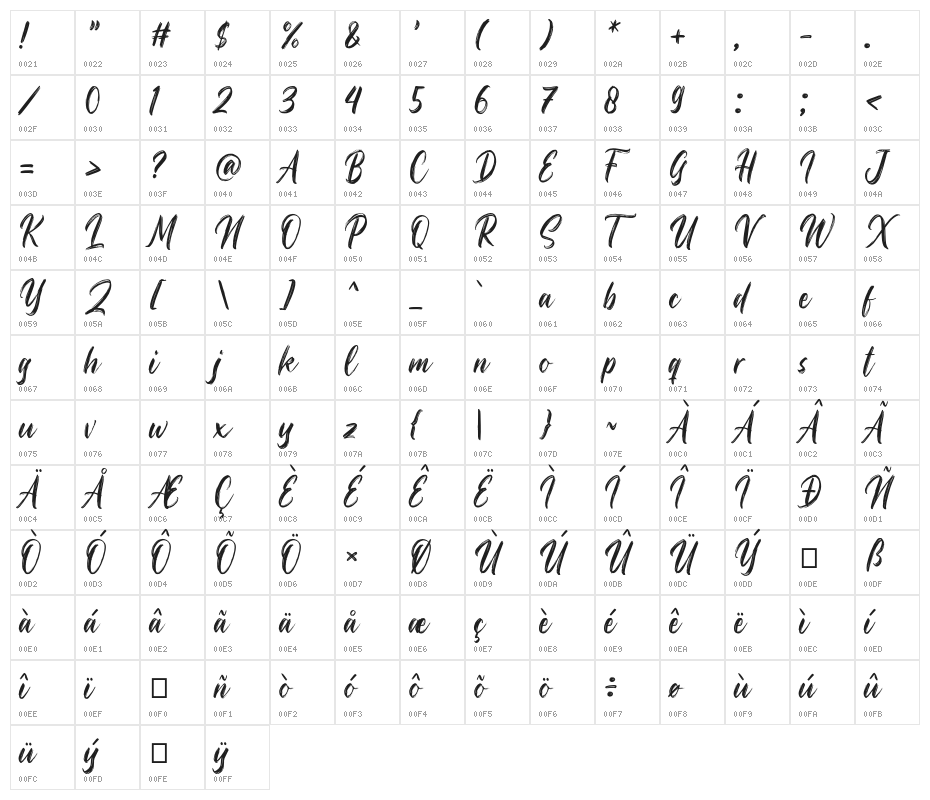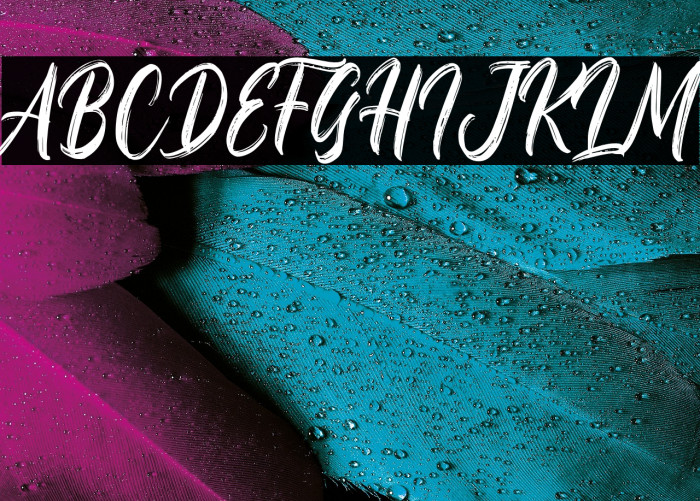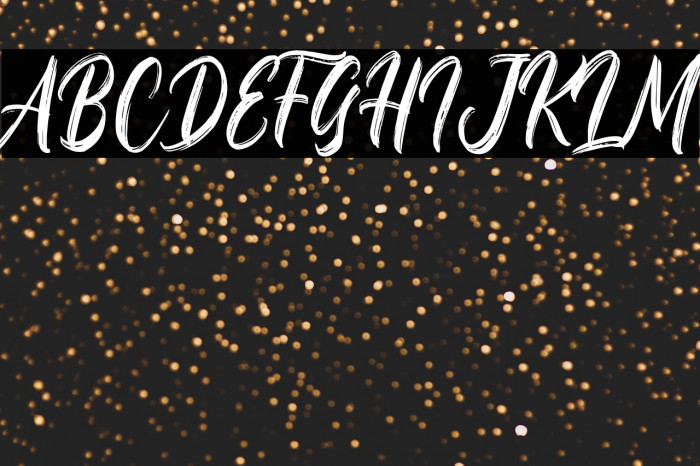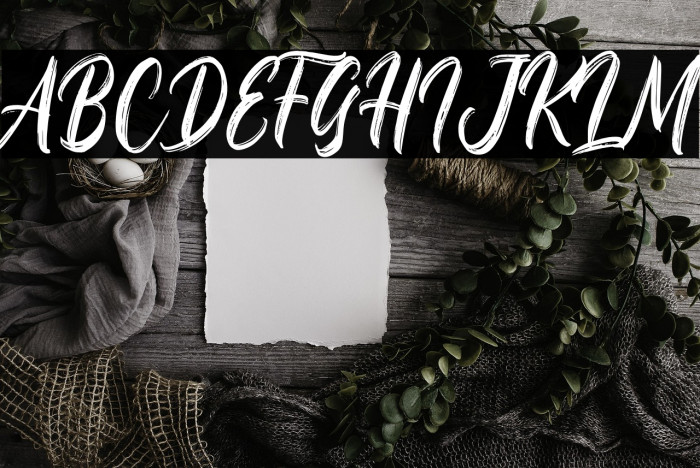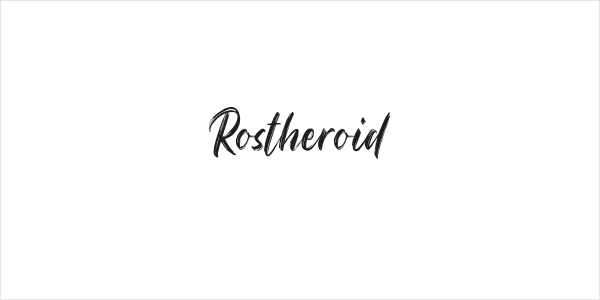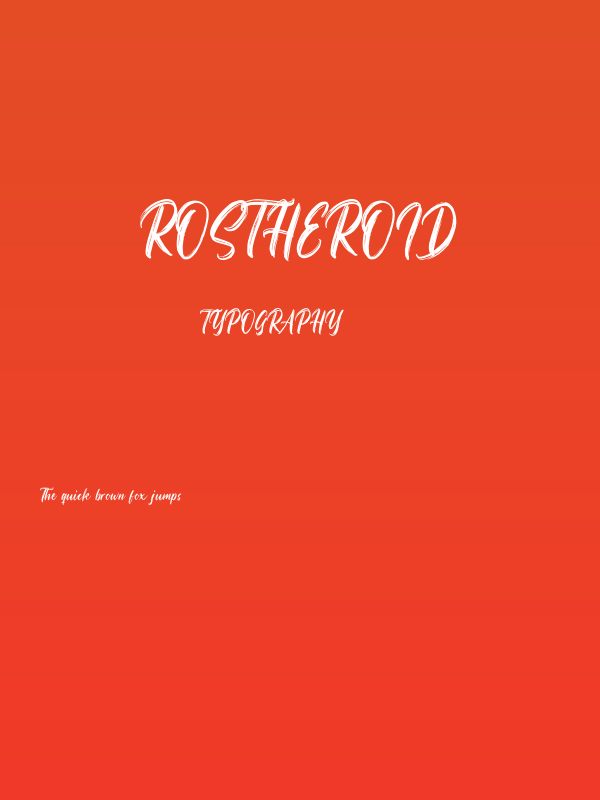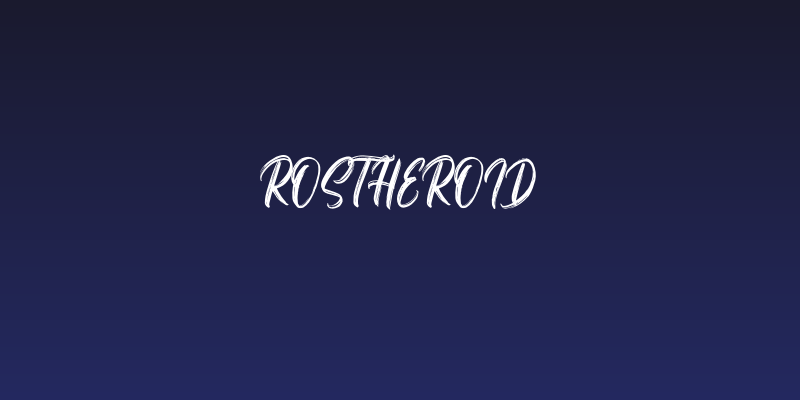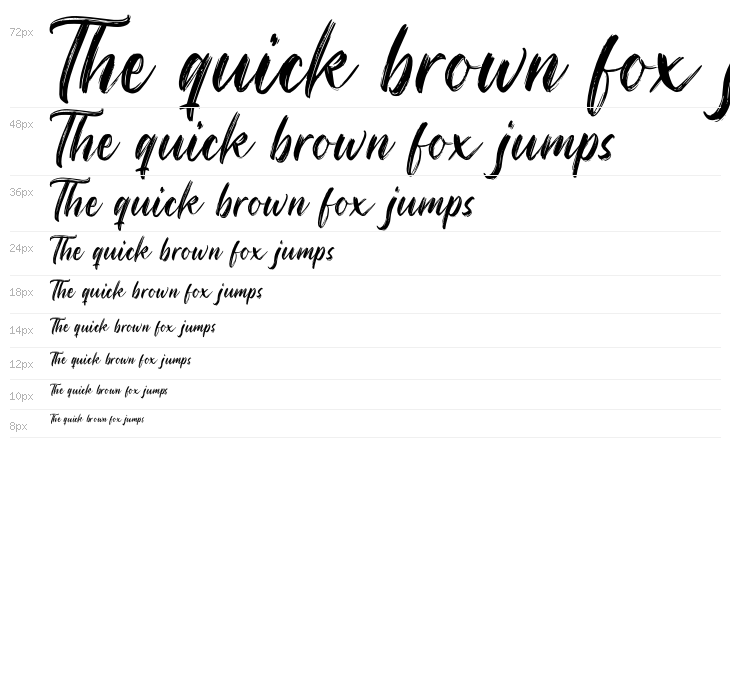
Rostheroid Font
Rostheroid Description
This font features a dynamic and expressive brush script style, characterized by its fluid and energetic strokes. The letters exhibit a natural, hand-painted appearance with varying thickness, adding a sense of movement and vibrancy. The uppercase letters are bold and prominent, while the lowercase letters maintain a consistent flow, enhancing readability. The numerals and special characters are crafted with the same artistic flair, ensuring a cohesive look across all text elements. This font's unique style makes it suitable for creative and artistic projects, where a touch of personality and flair is desired.